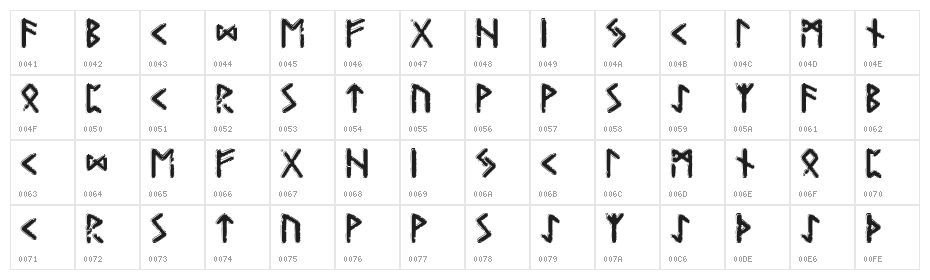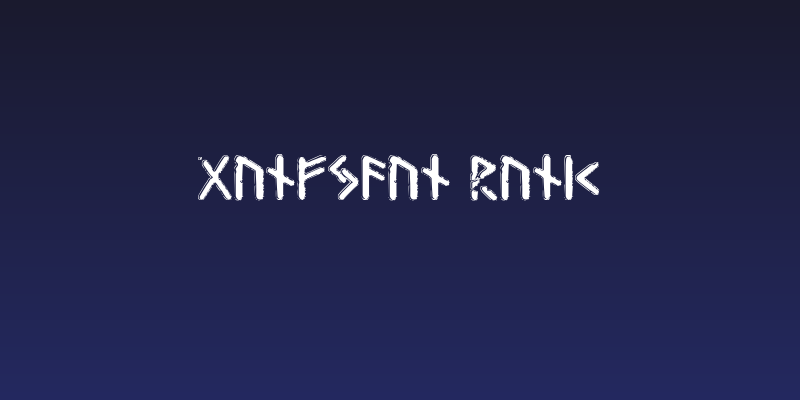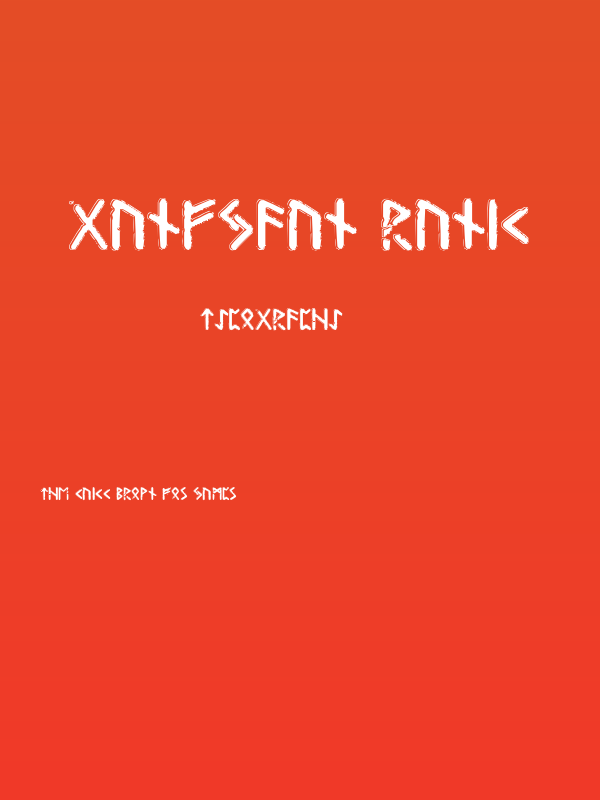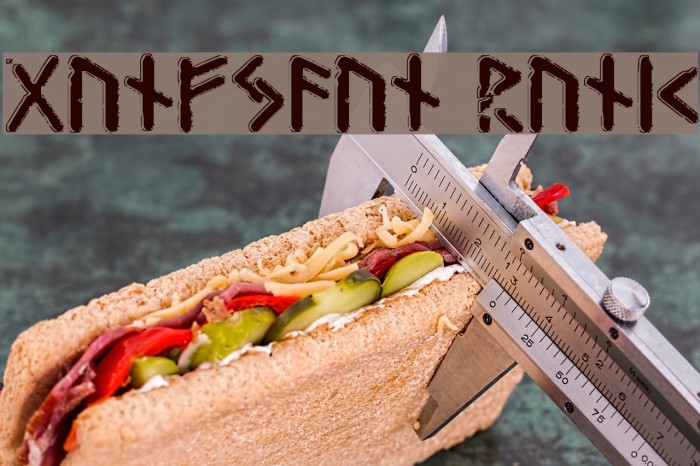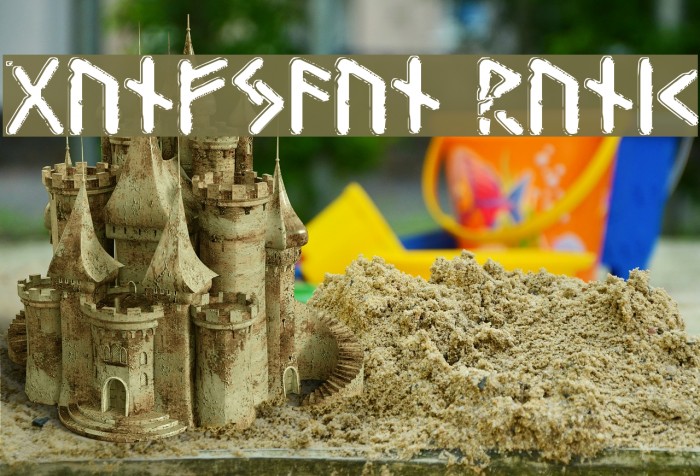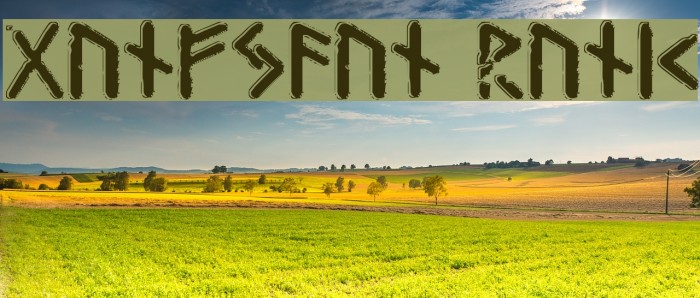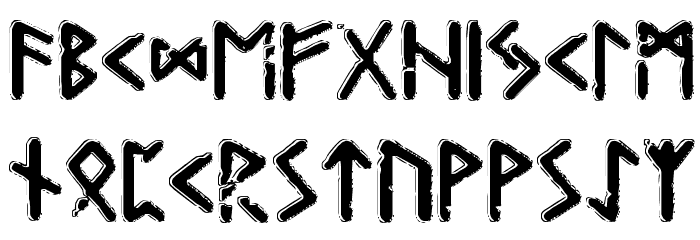
Gunfjaun Runic Font
Gunfjaun Runic Description
This font is inspired by ancient runic alphabets, featuring angular and geometric shapes that evoke a sense of mystery and antiquity. Each character is distinct, with sharp edges and a bold presence that makes it stand out. The strokes are consistent in thickness, giving it a uniform appearance while maintaining the unique characteristics of runic symbols. The font is designed to capture the essence of historical scripts, making it ideal for projects that require a touch of the ancient or mystical. Its decorative nature makes it suitable for thematic designs, especially those related to history, fantasy, or cultural motifs.
| Use Case | Logos, Headlines, Thematic designs |
| Proposed Projects | Ideal for fantasy-themed designs, historical projects, cultural motifs, and decorative purposes. |